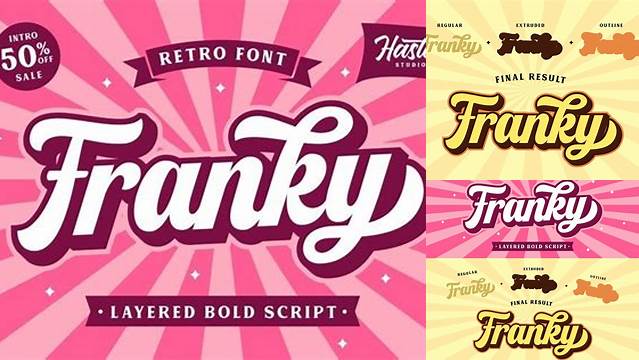
Hey there, design enthusiasts! Are you on the hunt for a fantastic font that oozes vintage charm and a touch of modern flair? Well, you're in luck! Today, we're diving deep into the world of the Franky Retro Script font, and guess what? You can snag it for free! This article will guide you through everything you need to know about this awesome font, from its stylish design to where you can download it without spending a dime. Get ready to add a dash of retro magic to your projects! Let's get started!
Franky Retro Script Font: A Blast from the Past
Guys, the Franky Retro Script font is not just a font; it's a statement! Imagine the groovy vibes of the 70s and 80s, the neon signs, the classic cars, and the overall sense of cool – that's what Franky Retro Script brings to the table. Its design is inspired by vintage signage, classic handwriting, and a dash of playful nostalgia. The font features elegant curves, smooth lines, and a slightly textured appearance that makes it look both handcrafted and authentic. It’s perfect for anyone looking to add a retro touch to their design projects. Whether you're creating logos, posters, social media graphics, or even invitations, this font is guaranteed to make your work stand out. The best part? It's super versatile! You can use it in a variety of projects, from personal endeavors to professional gigs. The font's unique style ensures that your designs will catch the eye and leave a lasting impression. So, why settle for ordinary fonts when you can embrace the retro charm of Franky Retro Script?
This font’s beauty lies in its details. The way each letter flows into the next, the slight imperfections that give it character, and the overall vintage feel make it a must-have for any designer. The Franky Retro Script font is not just about aesthetics; it’s about storytelling. It can transport your audience back in time, evoking feelings of nostalgia and warmth. It's perfect for branding, packaging, and anything else that needs a touch of old-school coolness. Imagine using this font for a vintage-themed party invitation, a retro-style logo for a new brand, or even a social media post with a classic quote. The possibilities are endless! The font's versatility also means that it works well with other design elements. You can pair it with bold colors, vintage textures, and graphic illustrations to create stunning visuals. Its readability is also a plus, meaning that your message is not only stylish but also easy to understand. The Franky Retro Script font is a true gem for any designer's toolkit. In the crowded world of design, it helps you stand out by adding a unique and memorable touch.
Benefits of Using Franky Retro Script
Embracing Franky Retro Script in your projects is like adding a sprinkle of magic. It’s not just a font; it’s a mood, a vibe, a statement! The benefits of using this fantastic font are numerous, making it a must-have in any designer’s toolkit. First off, it gives your projects an instant retro feel. The font’s design is heavily inspired by classic aesthetics, making it perfect for projects that aim to capture a sense of nostalgia. From vintage posters to branding designs, the font can transform your work and make it instantly appealing to a wide audience. It's ideal for anyone looking to evoke feelings of nostalgia, warmth, and a hint of playful charm. Secondly, Franky Retro Script is highly versatile. While it excels in retro-themed designs, it can also be adapted to various projects. You can use it for logos, social media graphics, invitations, and even website headers. This versatility makes it a valuable asset in your design arsenal. It can complement a range of design styles, from the minimalist to the bold. The font's adaptability allows you to experiment with different layouts and color schemes, ensuring your designs stand out. Then, there's the visual appeal. The font features elegant curves, smooth lines, and a handcrafted look that immediately draws the eye. It's designed to be visually engaging and memorable. Its slightly textured appearance adds a touch of authenticity, making your designs feel handcrafted and unique. The attention to detail in the font's design ensures that it's not only beautiful but also easy to read. This combination of style and readability makes it perfect for both headings and body text. For branding purposes, Franky Retro Script can be an absolute game-changer. It lends your brand an identity that resonates with customers. Using this font can communicate your brand’s personality and values.